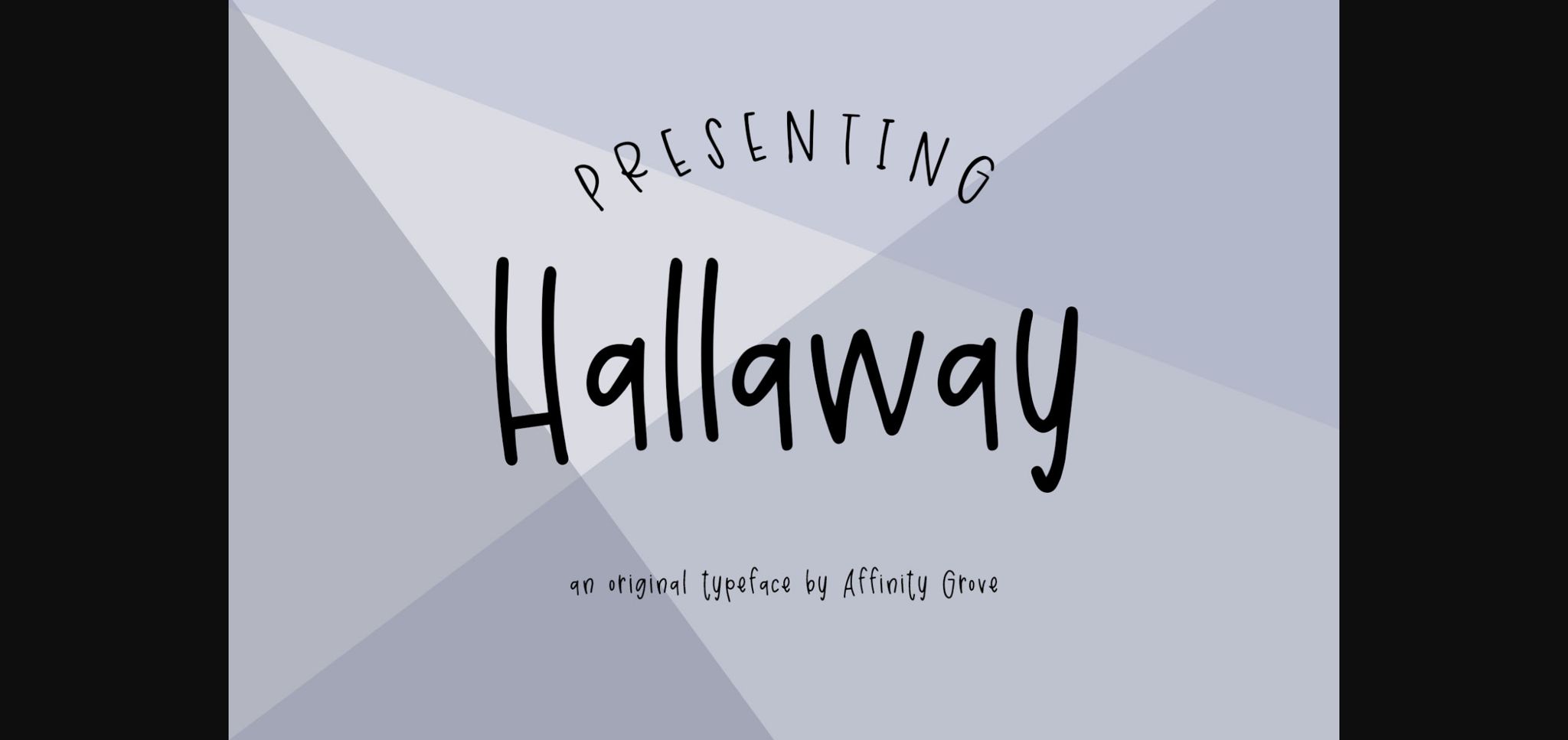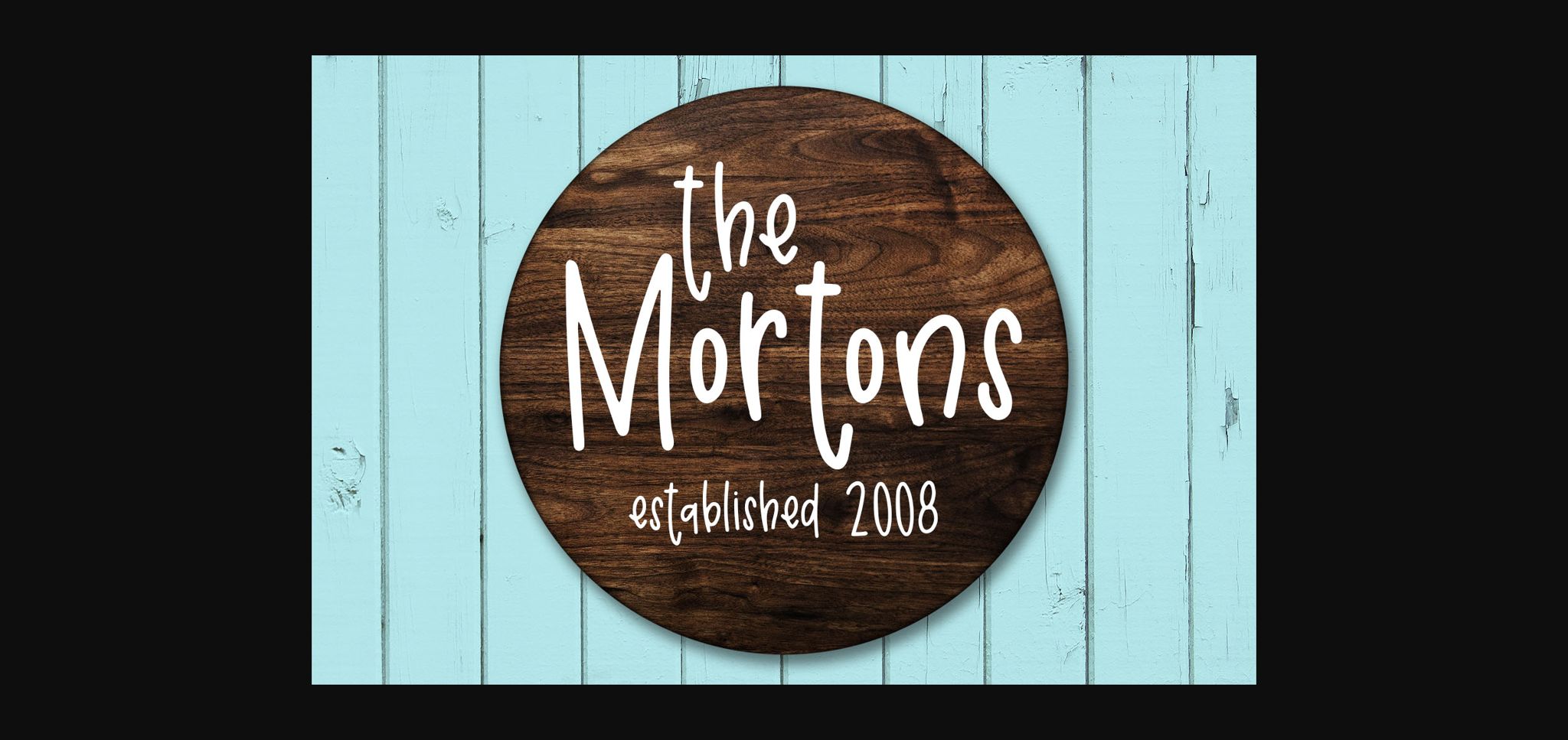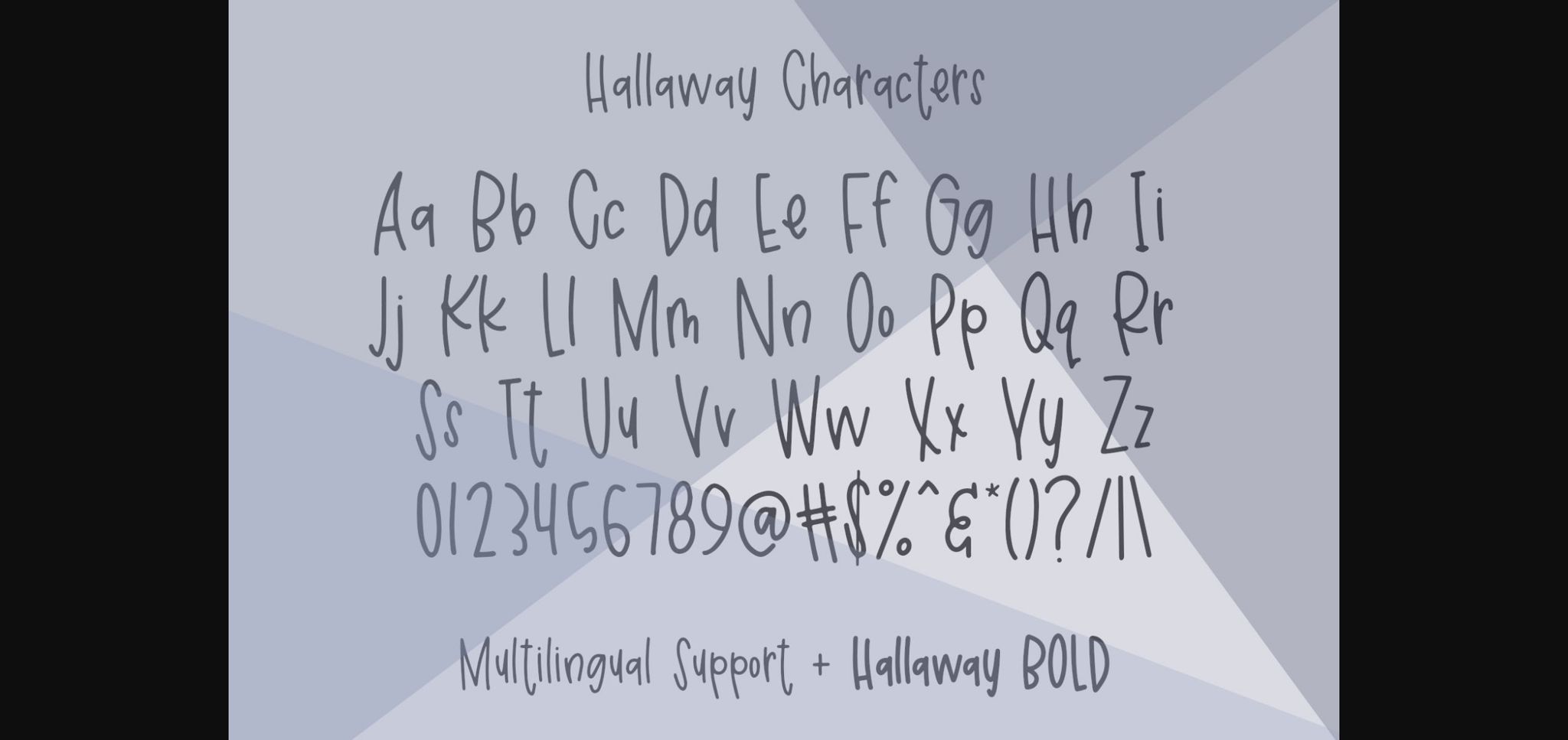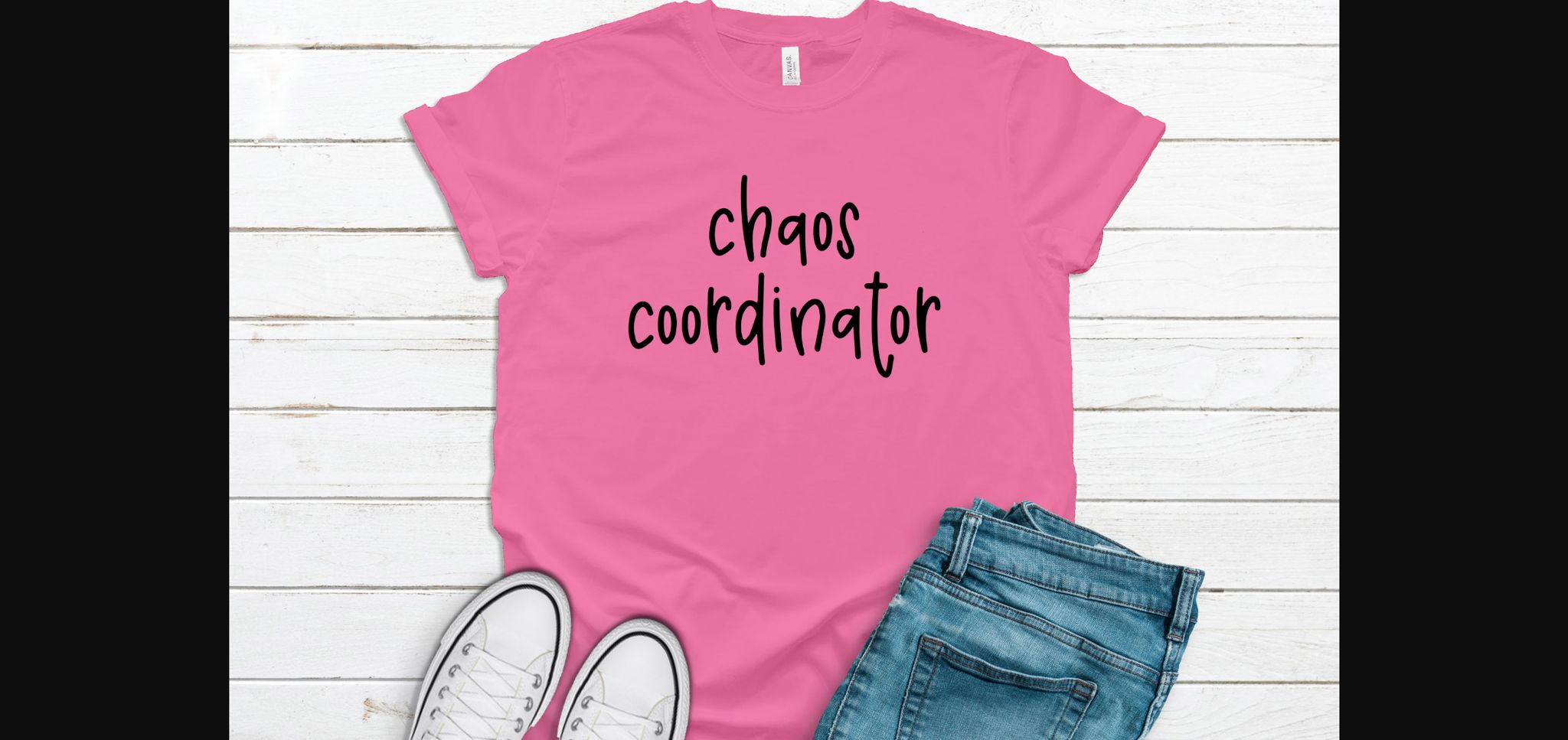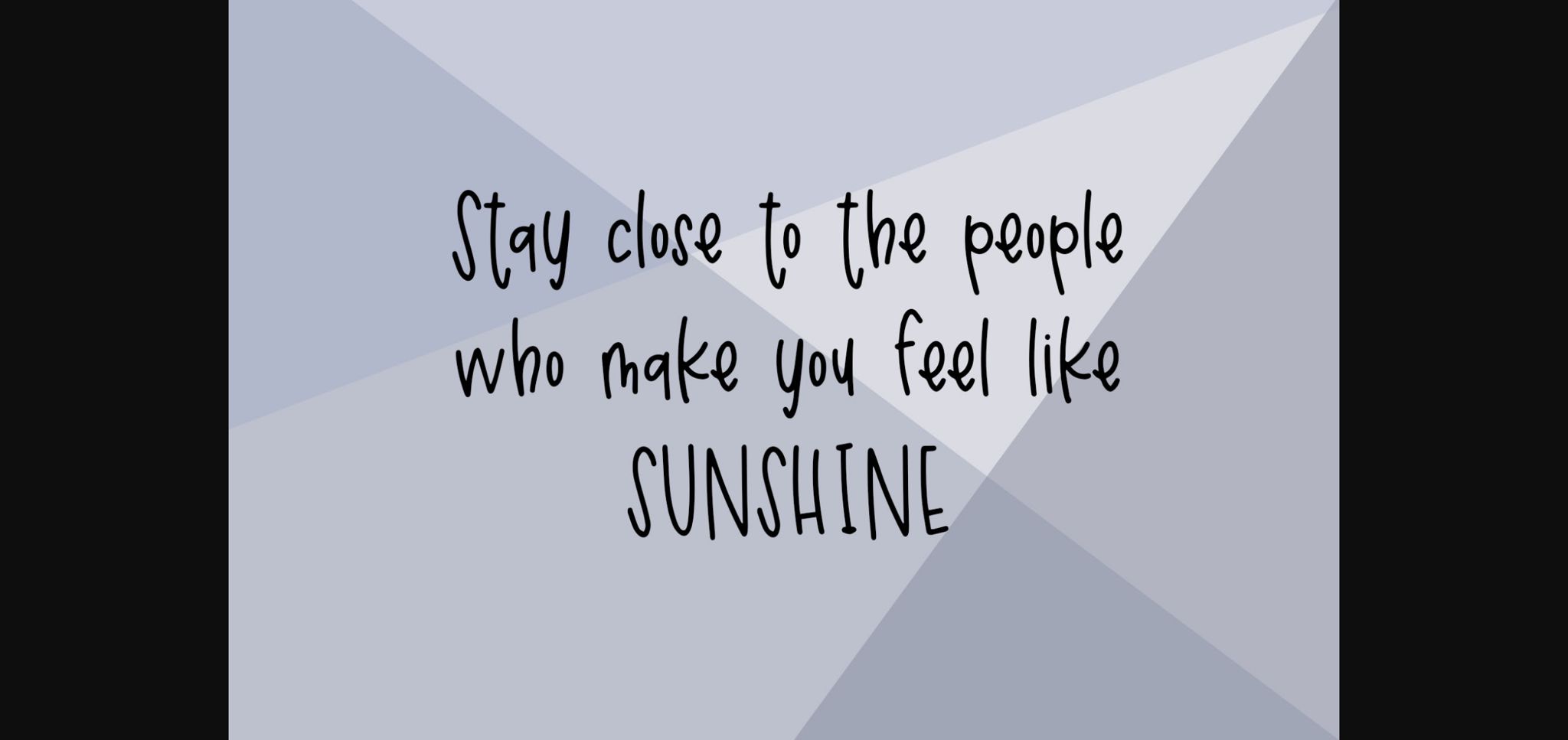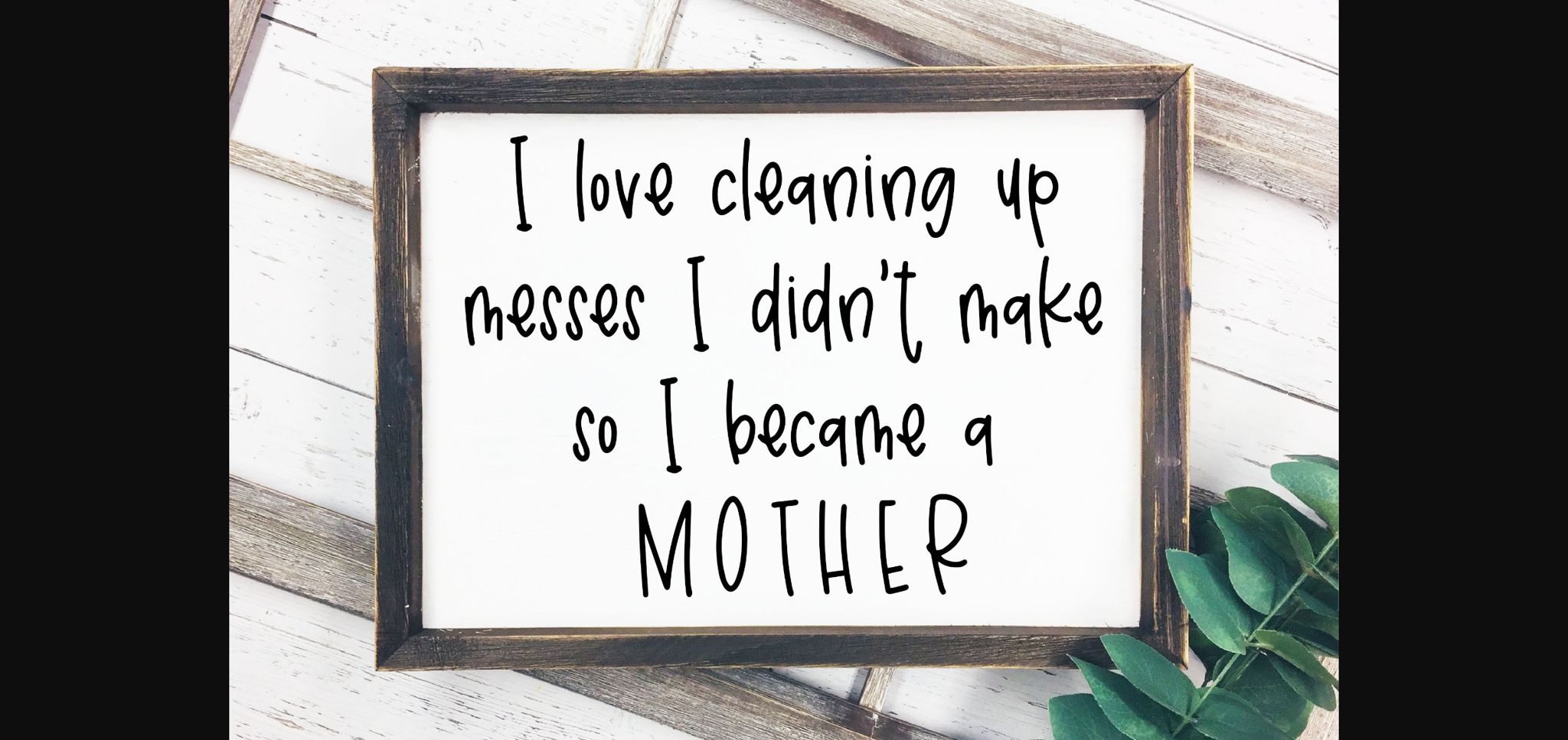
About Hallaway Font
Hallaway is a cute and casual hand-lettered font. Use it to style designs for party invitations, websites, products, greeting cards, and more! Add variety and character to your next project with the Hallaway font that comes in both regular and bold.